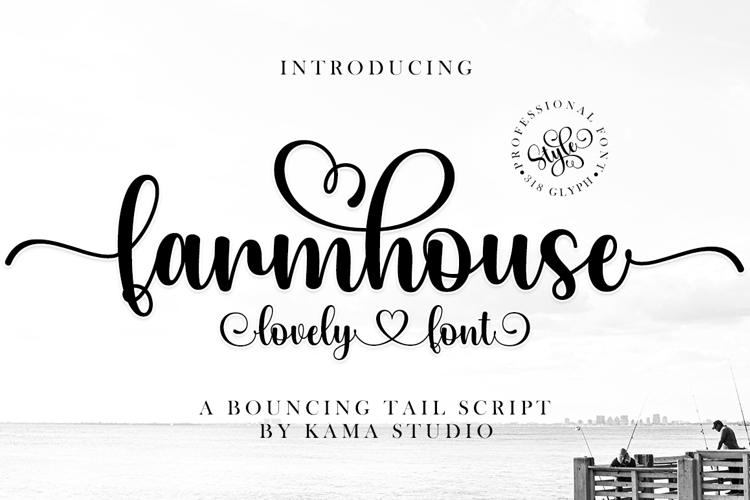
Farmhouse
Farmhouse is a beautifully handcrafted Bouncing Tail Script font designed to bring energy, personality, and charm to your creative projects. With its playful curves and distinctive flowing tails, it delivers a stylish, modern look while maintaining a warm handcrafted feel.
Its versatility makes it perfect for a wide range of applications, including letters, wedding and event invitations, branding, packaging, and food product labels. Whether used for eye-catching titles, elegant headlines, or standout design elements, Farmhouse adds a unique touch of sophistication that helps your work leave a lasting impression.
Bring your ideas to life with Farmhouse and give every design a memorable, expressive character.